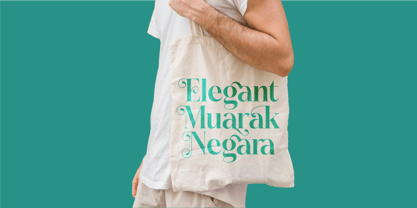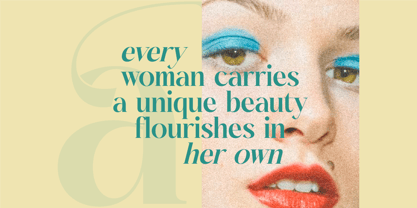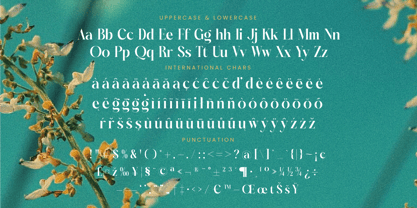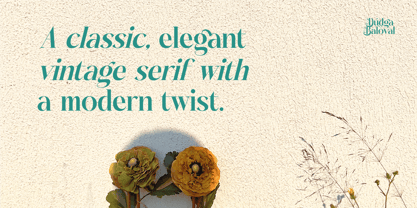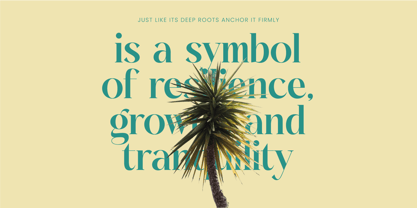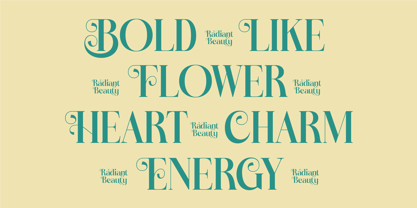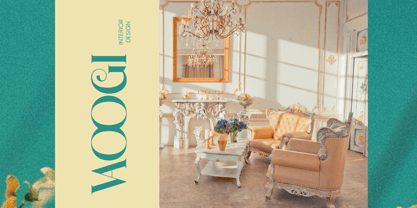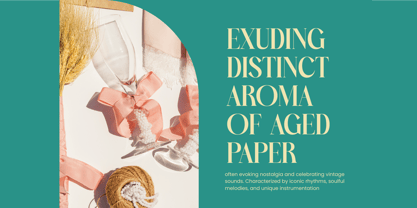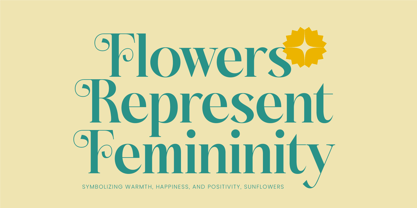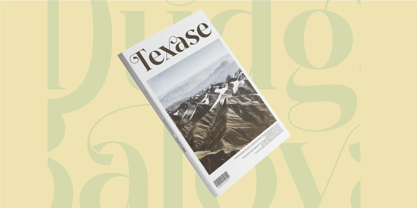
Dudga Baloval
The Dudga Baloval Font Family was designed by Heru Utama Putra and published by Timelesstype Studio. Dudga Baloval contains 2 styles and family package options. More about this family
Dudga Baloval - Elegant Serif Font , from Timelesstype , Suitable for any projects such as: logos, branding projects, homeware designs, product packaging, mugs, quotes, posters, shopping bags, t-shirts, book covers, name card, invitation cards, greeting cards, label, photography, watermark, special events, and all your other luxury and beautiful projects that need a Luxury Script taste.